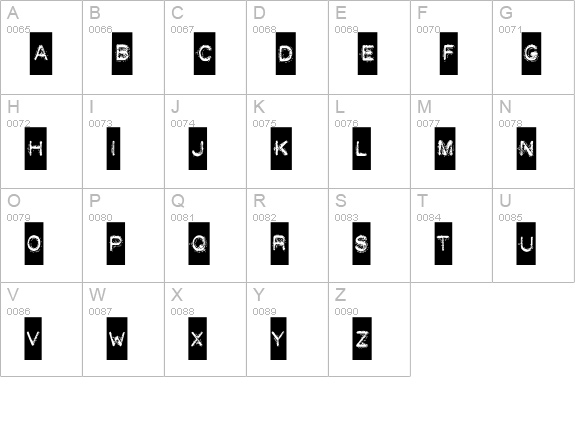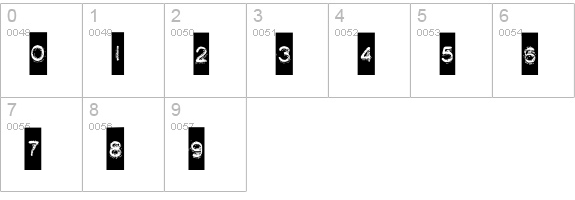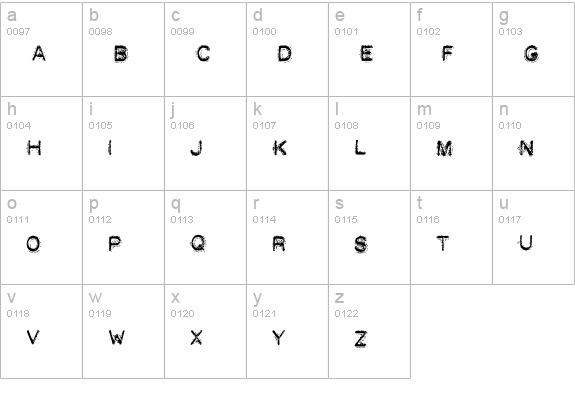
DEATH STRUGGLE Font Details
The DEATH STRUGGLE font is a bold and impactful typeface designed to make a statement. With its sharp angles and edgy aesthetic, this font exudes power and strength. Perfect for headlines, posters, and any design project that requires a touch of intensity. The best part? DEATH STRUGGLE font is available for free download at FontsMarket.com. Now you can add a touch of drama to your designs without breaking the bank. Don't miss out on this dynamic font that will take your projects to the next level. Download DEATH STRUGGLE font today and unleash your creativity!